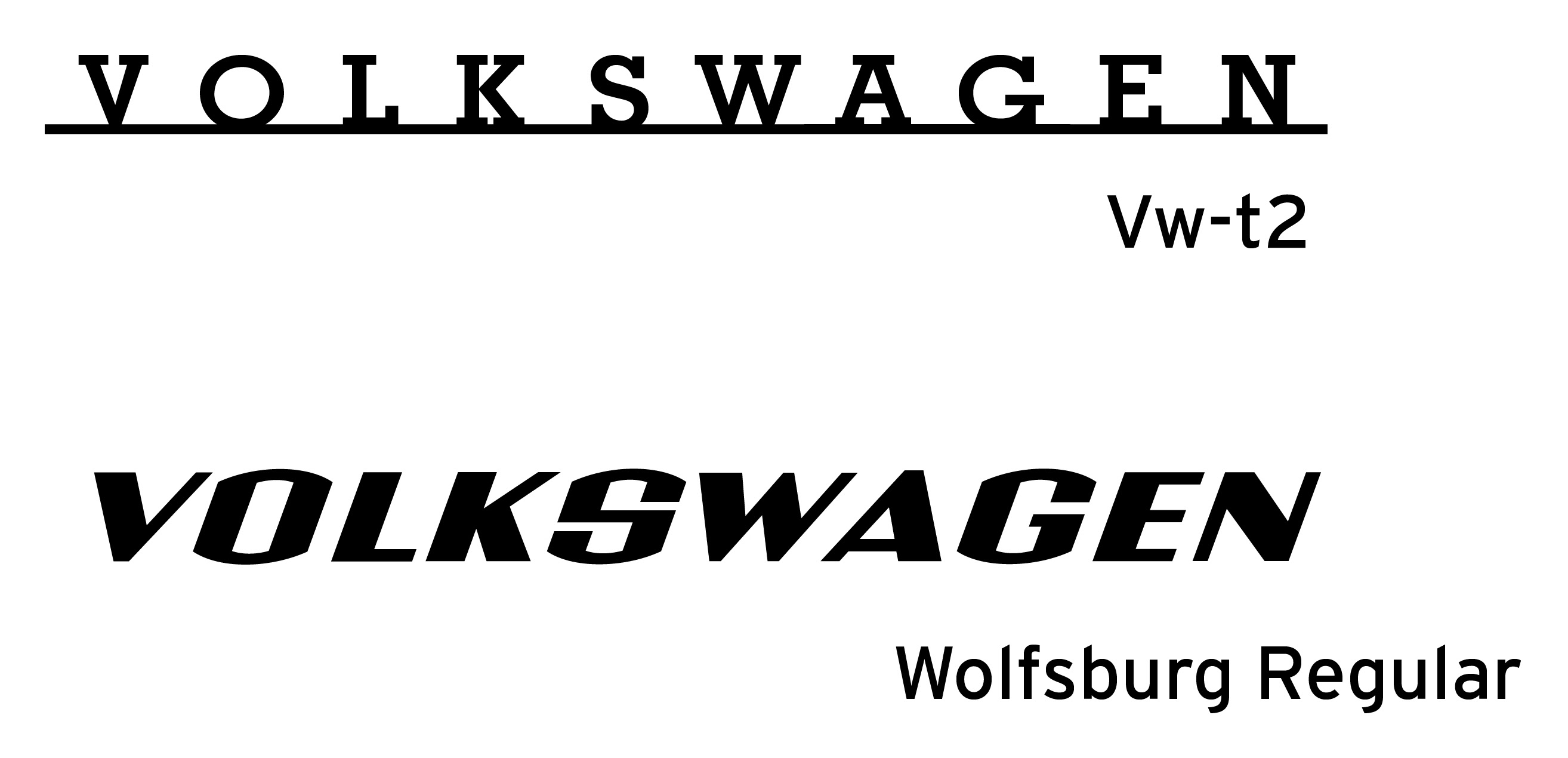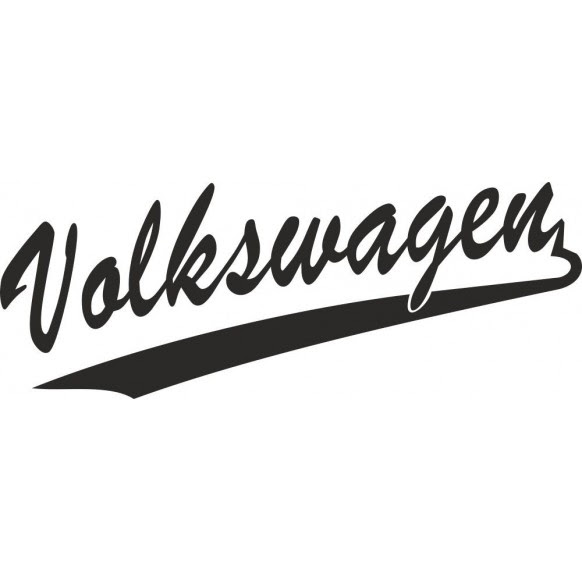
Classic Volkswagen Font
(bfalchuk) The typeface for the badges is NOT the modified Futura The Futura is their corporate font used for their marketing literature, etc And whoever thought that VAG Rounded is a font used by Volkswagen is smoking some serious crack edit well, I suppose I should retract my statement. Futura is a geometric sansserif typeface designed by Paul Renner and released in 1927 It was designed as a contribution on the New FrankfurtprojectIt is based on geometric shapes, especially the circle, similar in spirit to the Bauhaus design style of the period It was developed as a typeface by the Bauer Type Foundry, in competition with Ludwig & Mayer's seminal Erbar typeface of 1926. The Super Beetle had a totally redesigned front suspension, which featured A Better Ride (quieter and smoother) A 50% Larger Fuel Tank;.
Volkswagen is a big and famous car company Among them is the typeface of the Volkswagen brand, with the stylized VW Now befonts introduces you to the fonts Volkswagen is using And it won’t only be featured in the brand’s stationery and brochures, it will be found on every new VW’s dashboard, center stack, and infotainment system, as well. Volkswagen Font Family Volkswagen is a big and famous car company Among them is the typeface of the Volkswagen brand, with the stylized VW Now befonts introduces you to the fonts Volkswagen is using And it won’t only be featured in the brand’s stationery and brochures, it will be found on every new VW’s dashboard, center stack, and. The font was developed by Sedley Place Ltd for German car manufacturer Volkswagen and was used in much of their marketing materials 6 On March 9, 15, Apple introduced a new generation of MacBook 7 that utilizes the Apple designed San Francisco typeface.
The Volkswagen font contains 71 beautifully designed characters ️ Customize your own preview on FFontsnet to make sure it`s the right one for your designs. Volkswagen is a big and famous car company Among them is the typeface of the Volkswagen brand, with the stylized VW Volkswagen used these fonts in Golf and other car models What is logo Volkswagen font Volkswagen Logo Volkswagen Font Search and find FONTS used by World Brands in their logo Create your logo design based on best fonts, by using our easy to use logo and font tool, logo. Archive of freely downloadable fonts Browse by alphabetical listing, by style, by author or by popularity.
Here you will find fonts that look like Volkswagen Serial Use the selector above to match other fonts in the family Foundry SoftMaker Style Sans Serif Fonts 14 Price $1499 View Buy Family Buy Fonts Contextual Alternates Standard Ligatures A A Top of list Reset Settings. Back in the 1990s, good digital versions of the classic Futura weren’t readily available yet Still working at MetaDesign, Luc(as) drew two weights to fix this Volkswagen used those fonts for their body copy and headlines from 1996 all the way until 15. Volkswagen Font Family Volkswagen is a big and famous car company Among them is the typeface of the Volkswagen brand, with the stylized VW The best website for free highquality VW T2 fonts T2 Volkswagen font Map 60 prentice hall answers PDF victorian cursive outline font with.
Bahnschrift is a brand new digitization of the famous DIN 1451 character design standard and was released as a variable font for Windows in 17 DIN 1451 is a standardization for letterforms designs created by the German standards body Deutsches Institut für Normung (German Institute for Standardization) in 1931, and was intended for use on. Download the free font replicating the Volkswagen logo and many more at the ORIGINAL Famous Fonts!. JBugscom is the one stop shop for classic VW Beetle, Super Beetle, Bus/ Type 2, Karmann Ghia, Type 3 and Thing Parts Enjoy up to 15% off your order, Free Shipping, & More!.